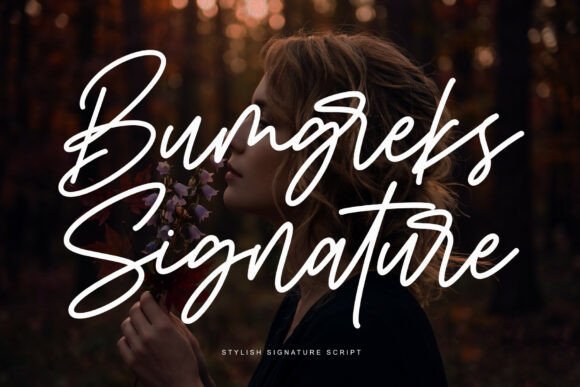
Unlocking the Art of Handwritten Elegance
Have you ever been inspired by the perfect handwritten signature on a loved one’s birthday card or a friend’s wedding invitation? The way it flows, the way it curves, and the way it conveys a sense of personality and warmth – it’s a true masterpiece. As creatives, we’re always on the lookout for that special something that elevates our designs and makes them truly special. That’s where Bumgreks Signature Font comes in – a stunning handwritten script font designed to capture the essence of sophistication and authenticity.
Perfect for branding, logos, wedding designs, and high-end editorial layouts, Bumgreks Signature Font delivers a timeless aesthetic that enhances both digital and print designs with a refined and personal touch. Its clean yet artistic look makes it a valuable addition to any designer’s toolkit, offering endless possibilities for creative expression and refinement.
Bumgreks Signature Font Key Features
- Font Family: Bumgreks Signature Font is a unique, handwritten font designed for creative and personal projects.
- Unique Characteristics: Features a distinctive, cursive style with subtle flair and texture, making it perfect for adding a personal touch to designs.
Bumgreks Signature Font Review
I was excited to dive into Bumgreks Signature Font, and I’m glad I did! This font has some real gems that make it a great addition to any design project.
- Unique blend of elegant and playful vibes: The font’s design is a great balance of sophistication and whimsy, making it perfect for a wide range of applications.
- Excellent legibility: The letters are clear and easy to read, even at smaller font sizes.
- Packaged with a range of weights and styles: This font comes with a variety of weights and styles, giving designers plenty of options to choose from.
- Not ideal for body text: While the font is great for headlines and titles, it may not be the best choice for large blocks of body text due to its more decorative nature.
- Lack of italic and bold styles: While the font comes with a range of weights and styles, it would be nice to see italic and bold options added to the package.
Overall, I think Bumgreks Signature Font is a great choice for designers looking to add a touch of elegance and whimsy to their projects. While it may have some limitations, its unique blend of styles and excellent legibility make it a worthwhile addition to any design arsenal.
Bumgreks Signature Font Practical Application Guide
Tips for Getting the Most Out of Bumgreks Signature Font
Use the font in moderation to avoid overwhelming the viewer. Combine the font with other design elements, such as images and colors, to create a visually appealing design. Experiment with different font sizes and styles to add emphasis and create hierarchy.
Bumgreks Signature Font is ideal for use in branding, marketing materials, and digital products. Use the font to create a consistent and recognizable brand identity, or to add a touch of personality to your designs.
Alternatives to “Bumgreks Signature Font” for Designers
Pacifico is a beautiful, elegant script font perfect for creating a sophisticated and refined look. It’s ideal for use in wedding invitations, luxury branding, and high-end marketing materials. Compared to Bumgreks Signature Font, Pacifico has a more polished and sophisticated feel, making it suitable for more formal and upscale designs.